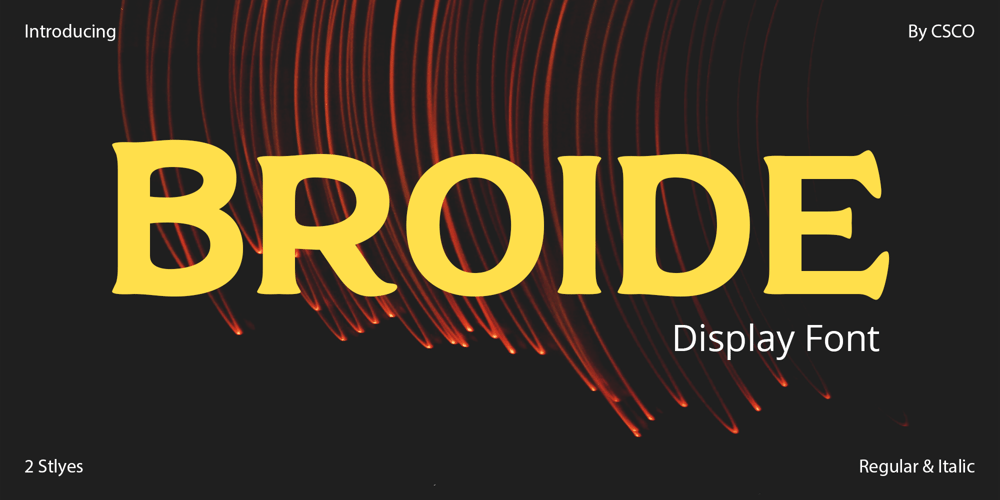
Broide Font Family was designed by Trio Nazzar Saputra, Wahyu Hadi Yuana and published by Craft Supply Co. Broide contains 2 styles and family package options. Broide: Softness Meets Serif Introducing Broide – Display Serif, where softness shapes strength. This bold, low-contrast serif font is friendly. Rounded serifs give it a gentle character. It’s a font that combines clarity with warmth.A Friendly Touch Broide brings a friendly vibe to your words. Its rounded serifs soften its bold stance. This typeface looks strong yet approachable. It’s ideal for invitations and branding. Also, it’s perfect for creating a welcoming feel.